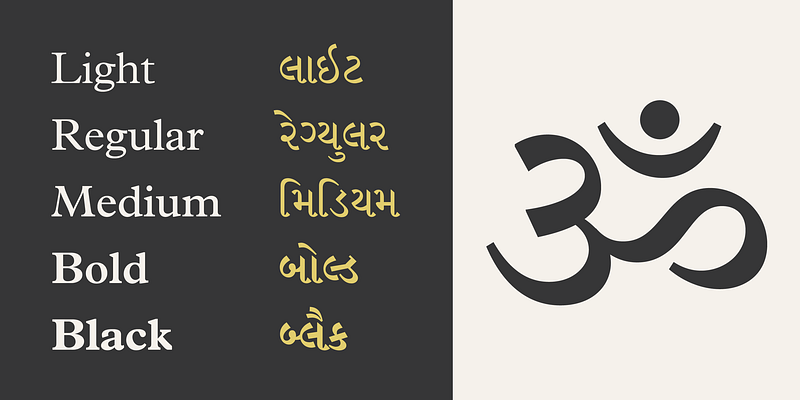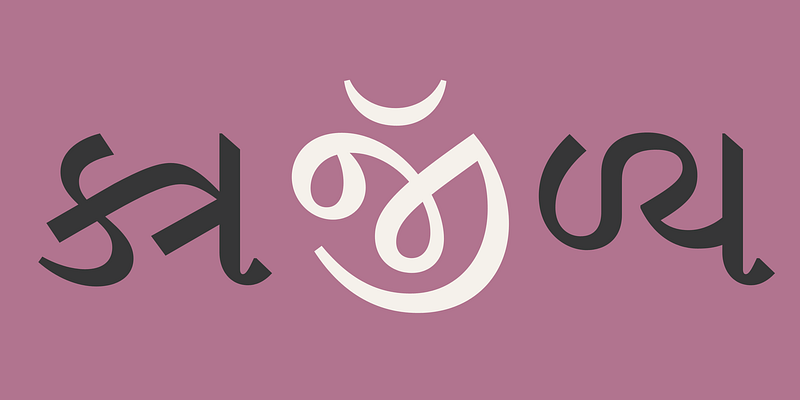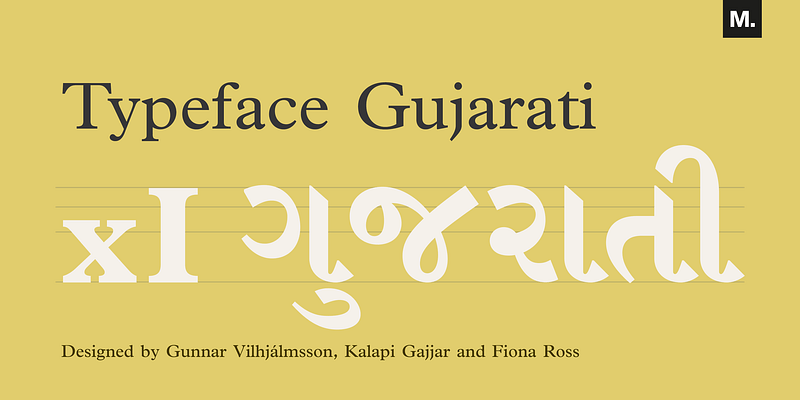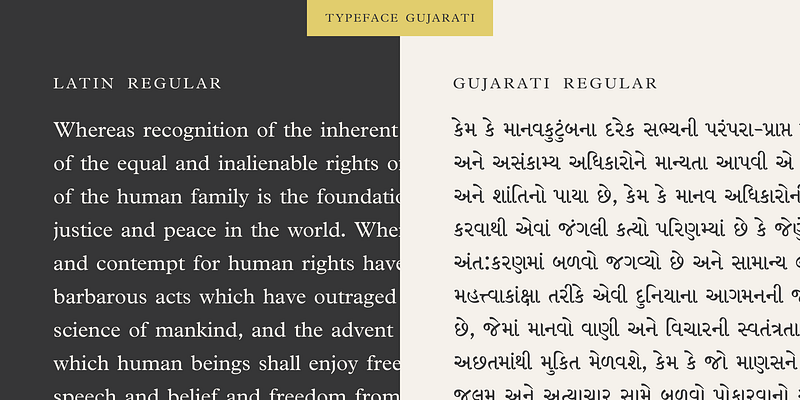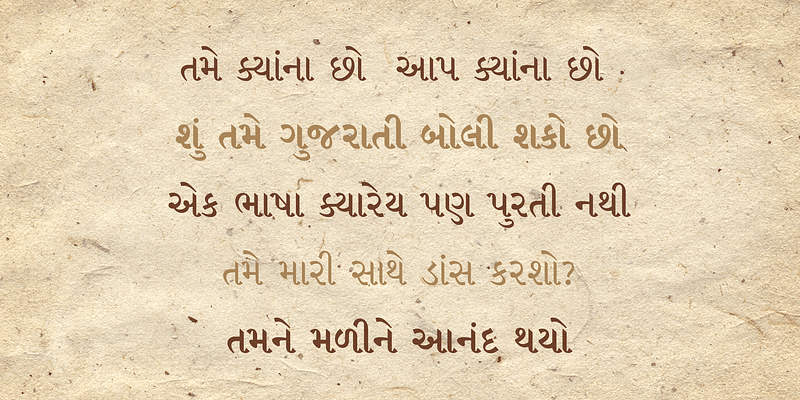
The Linotype® Gujarati typeface was originally developed in 1983 by the Linotype letter-drawing studio under Fiona Ross’s art direction. This revival was designed by Gunnar Vilhjálmsson and Kalapi Gajjar with Fiona Ross as a consultant. The family has five weights from Light to Black. It is a traditional design, optimized for setting lengthy text copy for print projects or for use on screens. While faithful to the original design, Linotype Gujarati introduces many design improvements, additional weights, and an extended character set. This new Linotype Gujarati is part of a project to refresh the pivotal Linotype Bengali and Linotype Devanagari typefaces and make them available for the first time in the popular OpenType font format.